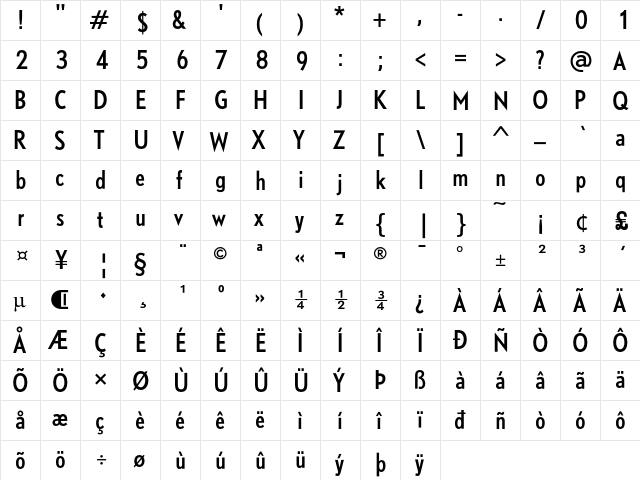
DTL Nobel T Condensed Regular
Design Context for DTL Nobel Typeface
DTL Nobel offers clean, dependable letterforms without strong stylistic allegiance, making it a practical choice for designers who need flexibility. Its narrow stance lets it pack a punch even in space-constrained designs.